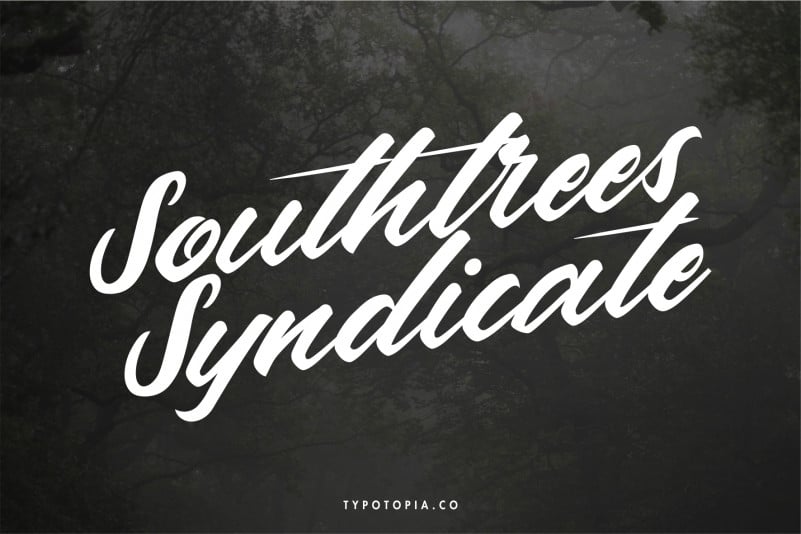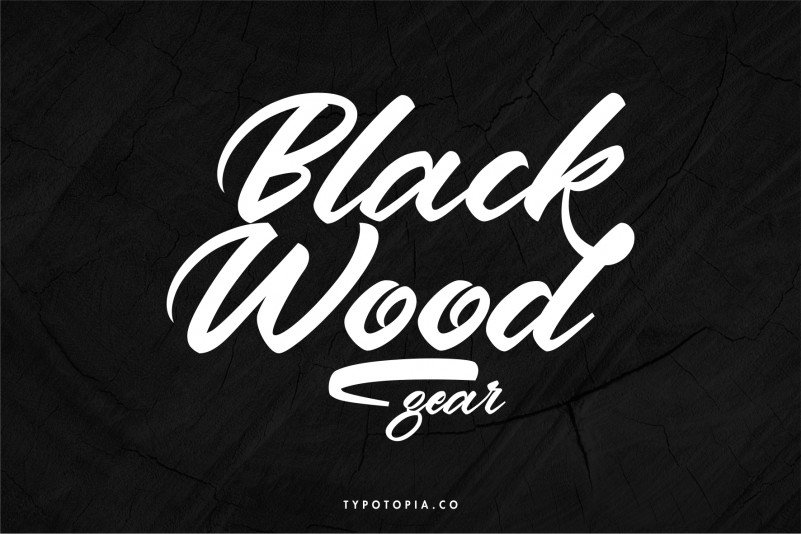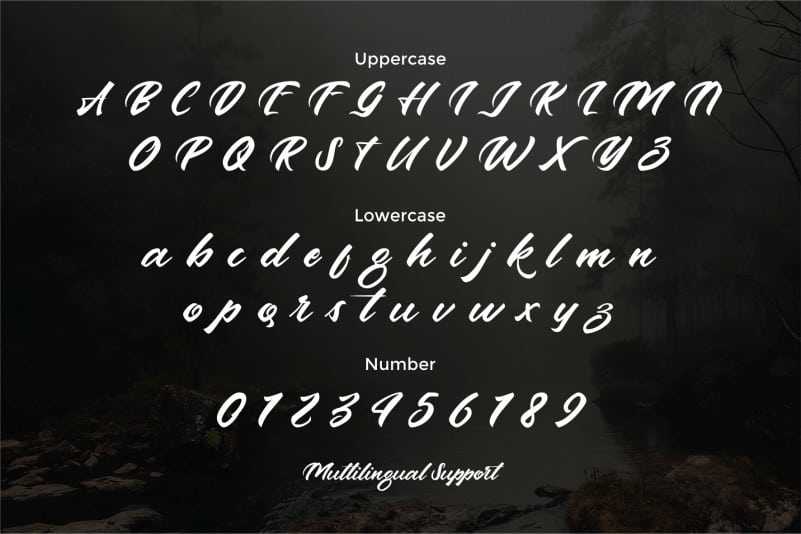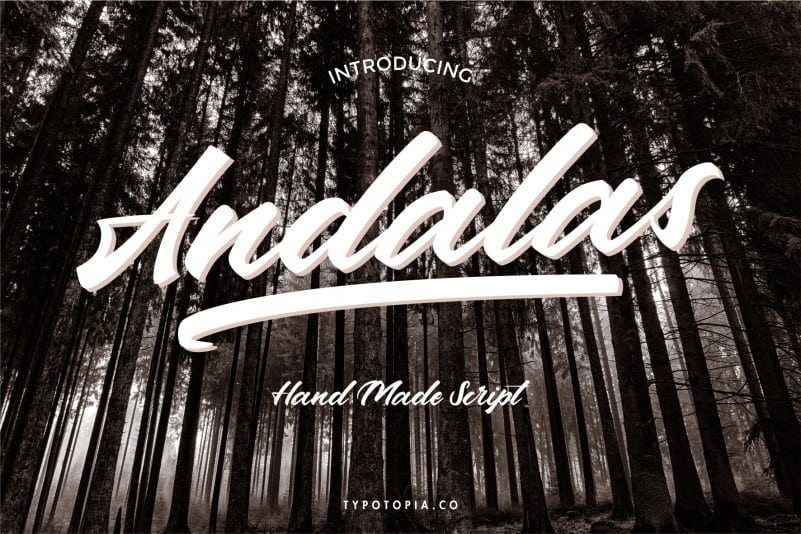
Andalas Script Font
Introducing Andalas Script Font. This Fonts Comes is a bold connected script font with a clear style and dramatic movement. Every single letters have been carefully crafted to make your designs looks better.
Andalas Script Font is the great choice for several purpose, such as watermark, logo, business card design, quotes, album cover, invitation letter, stationery, and many other design project that need handwriting taste.